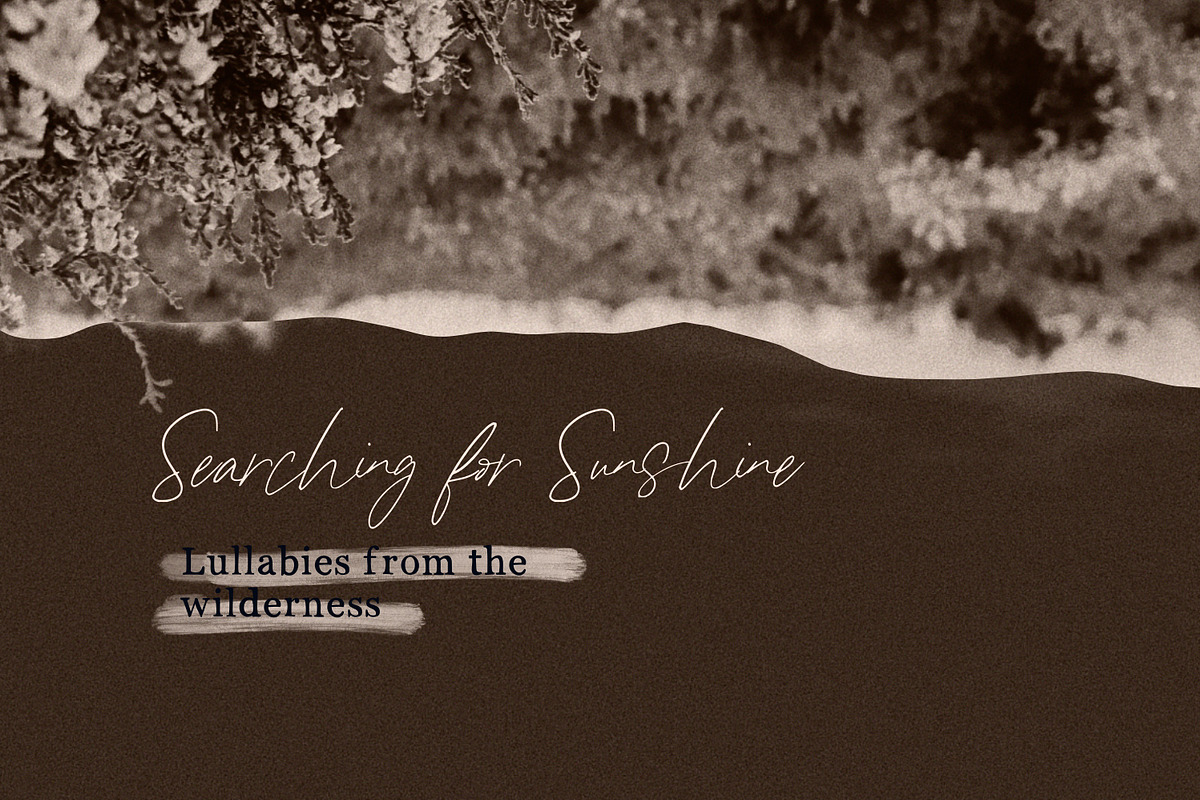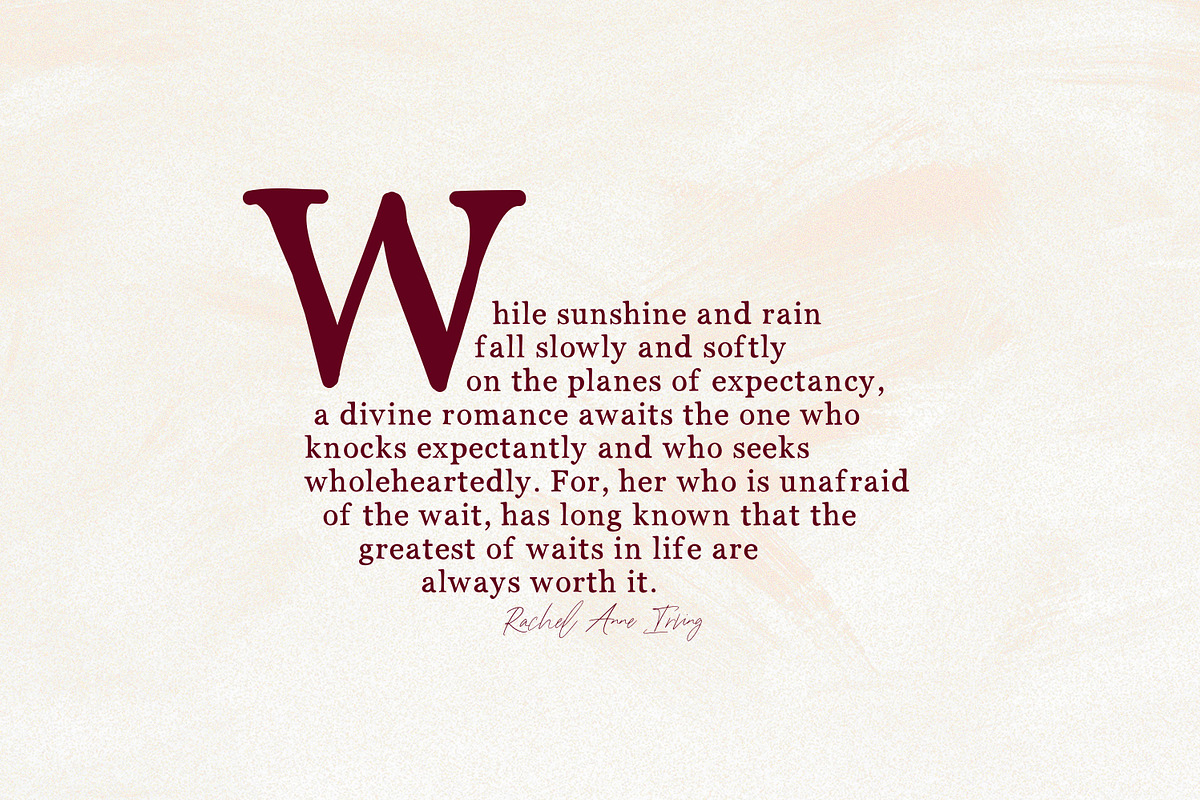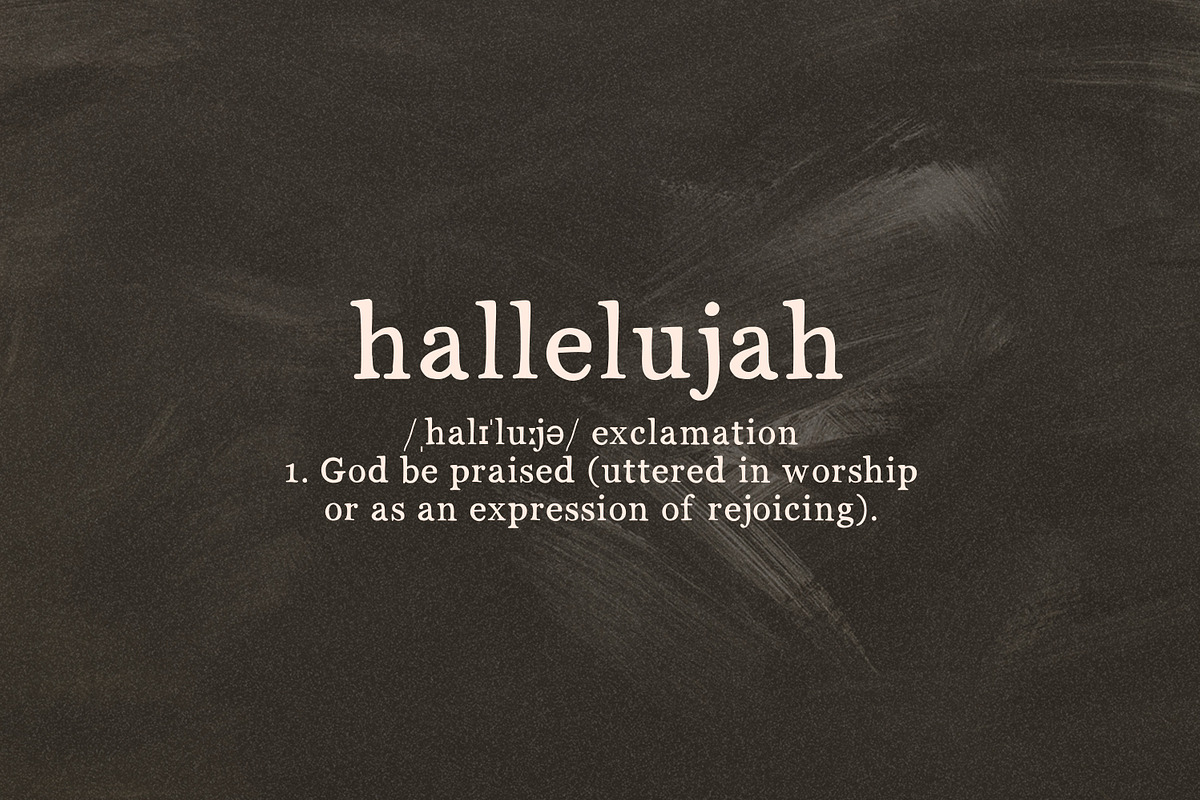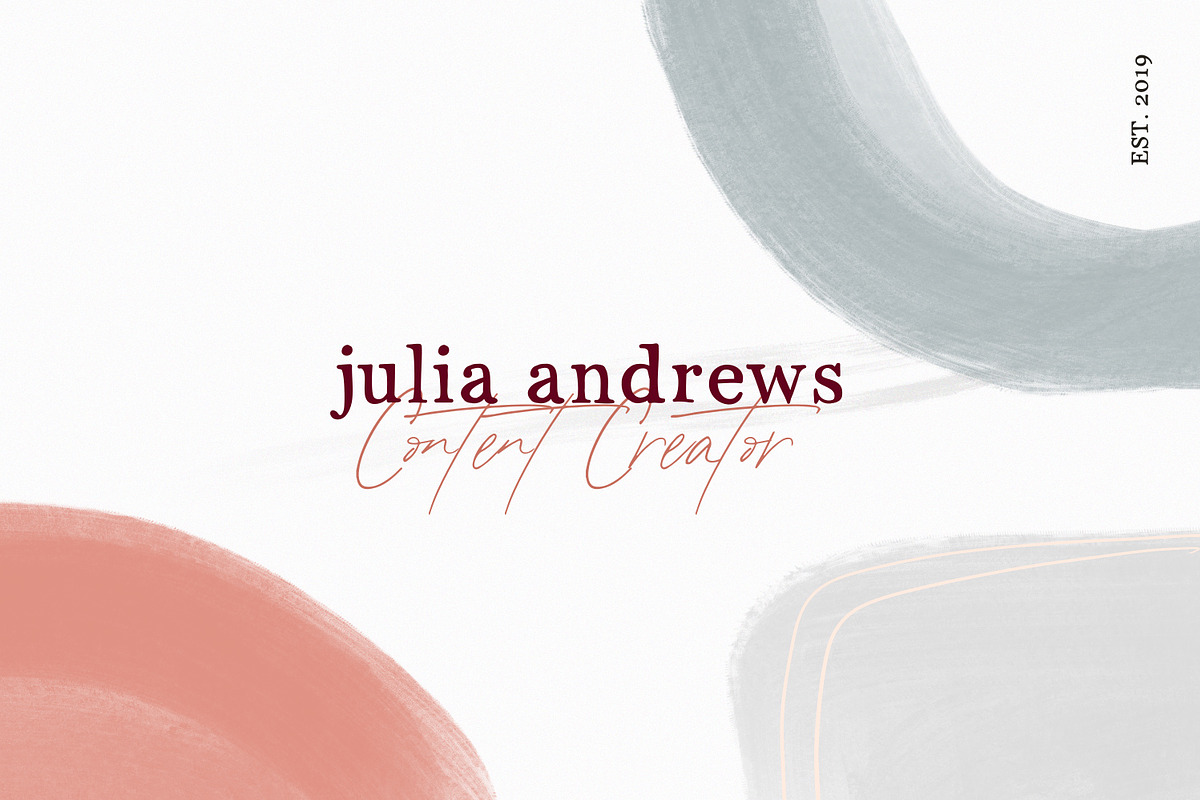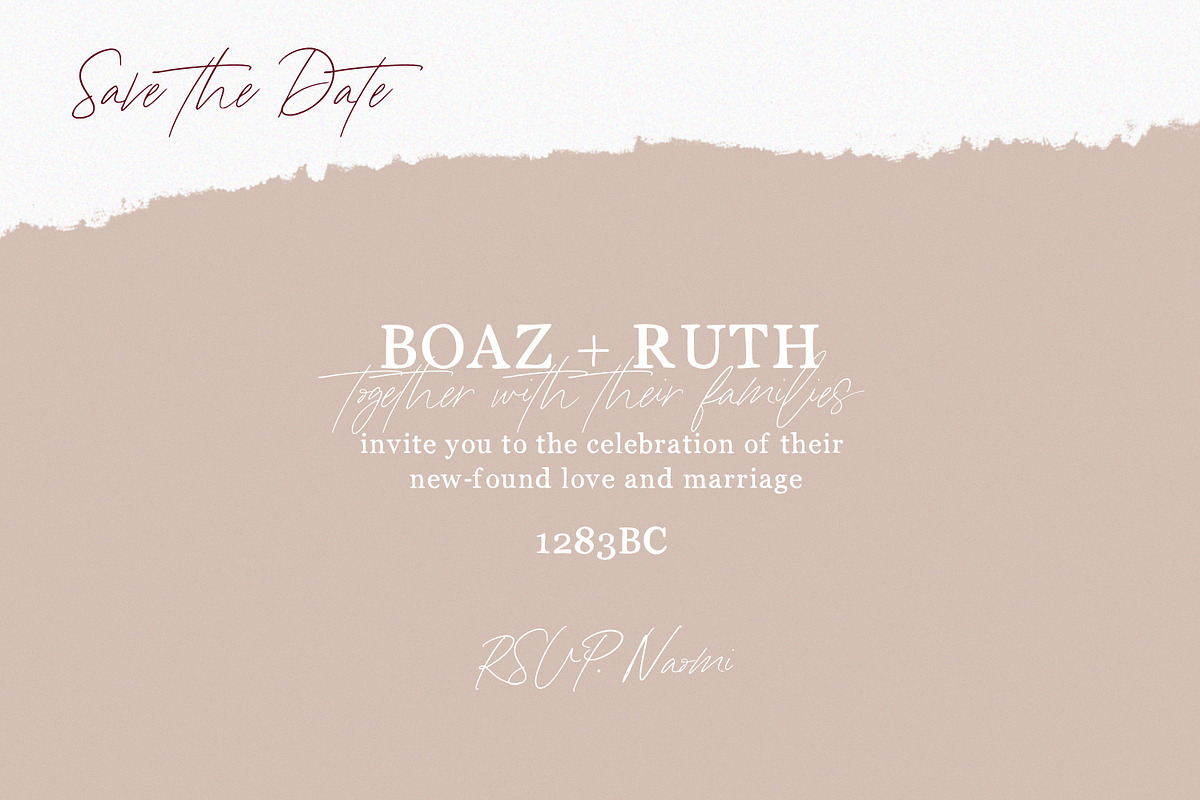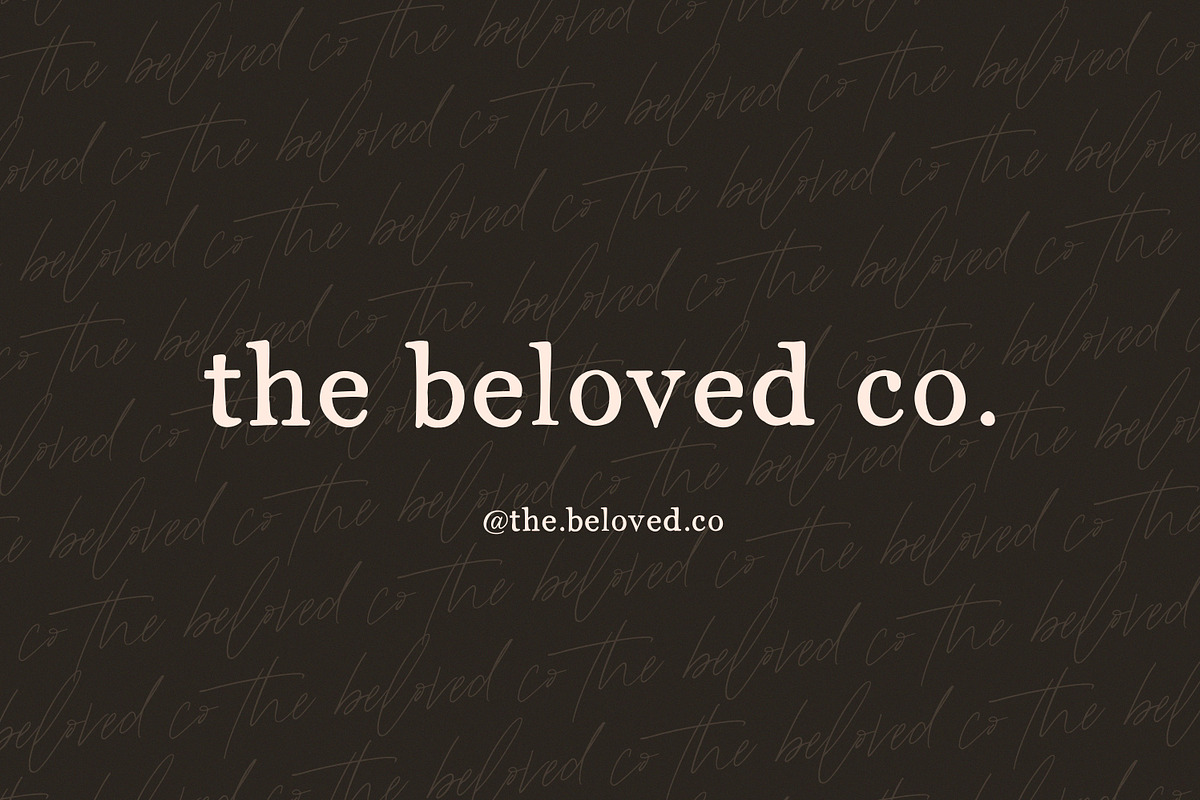
Hallelujah | Font Duo
Inspired by the worshipping of One who is greater than us, by the awe of who He is and the wonder of the life He gives, Hallelujah Font Duo is the exquisite pairing of a song of a hand-written script font and it's strong serif companion.
This duo is perfect for quotes, albums, logos, invitations, websites, branding and more!